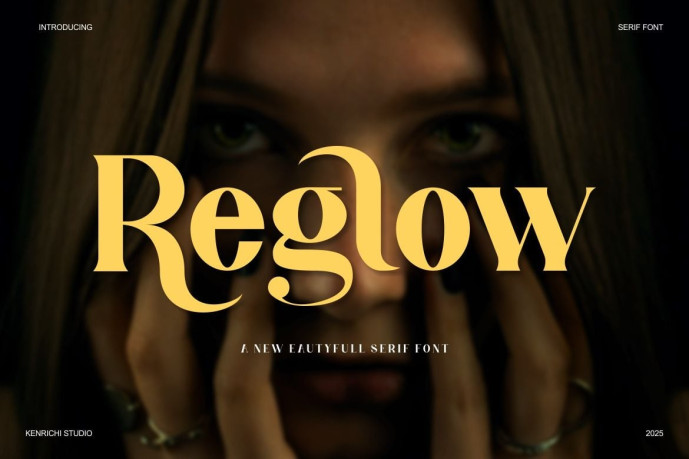
Reglow Serif Font
Reglow Serif Font, a bold and modern condensed typeface. With its strong, impactful lines and unique cut details, Reglow is perfect for creating eye-catching headlines, logos, and posters. Its bold, blocky letters convey strength and confidence, making it ideal for projects that need to stand out and leave a lasting impression. Whether you’re designing for advertising, fashion, or creative branding, Reglow robust, condensed style provides a versatile solution for enhancing visual impact.
**Features:
• Uppercase
• Lowercase
• Numeral & Punctuation
• Ligatures